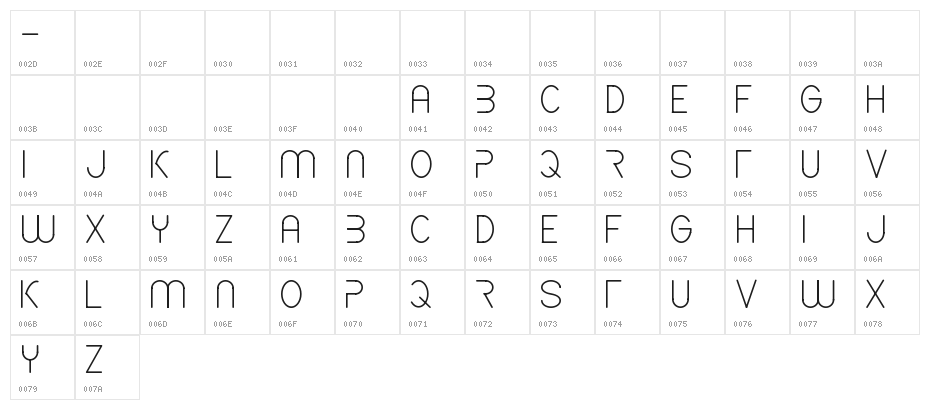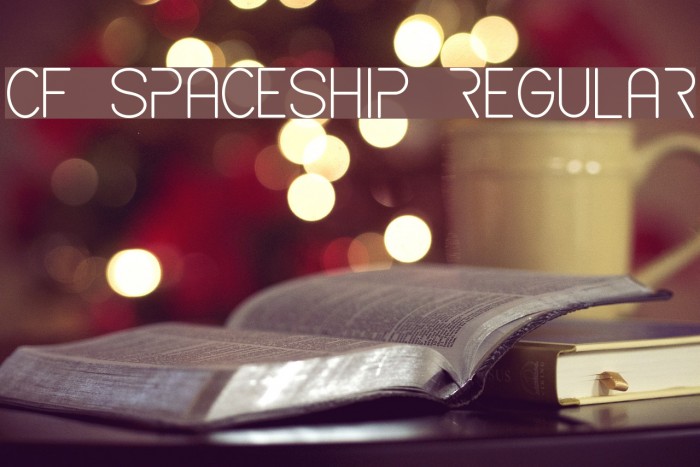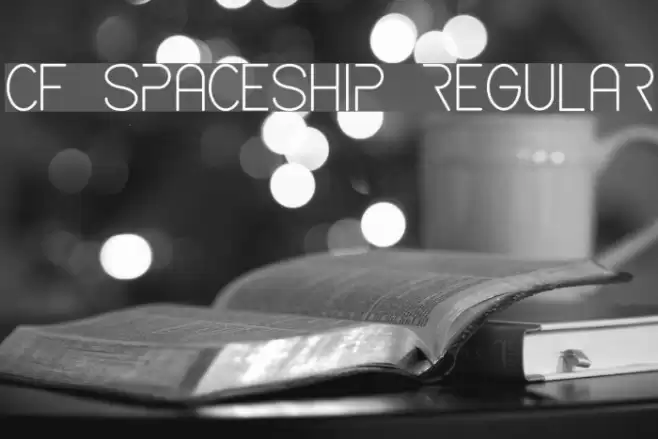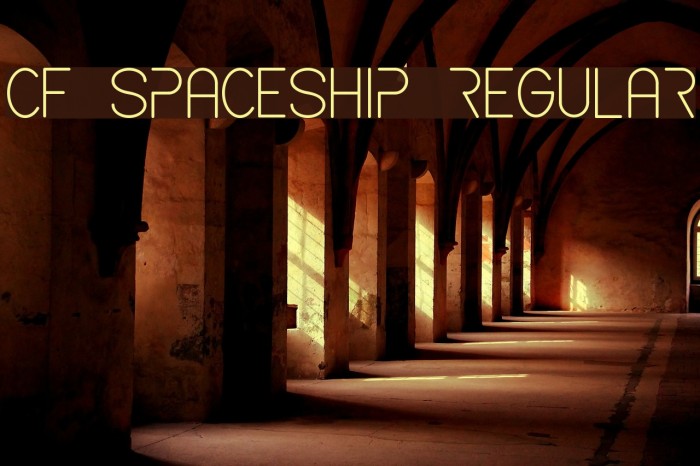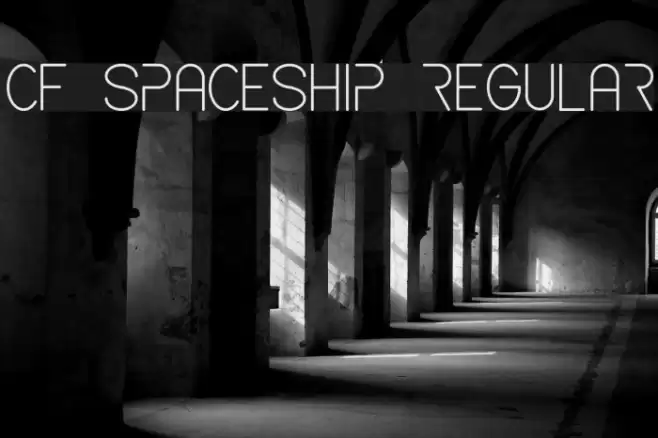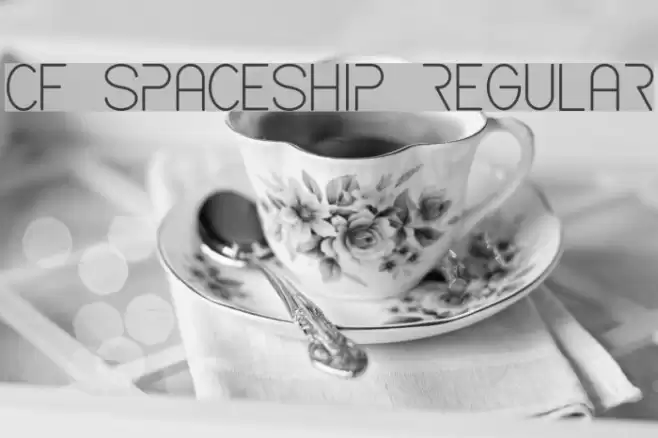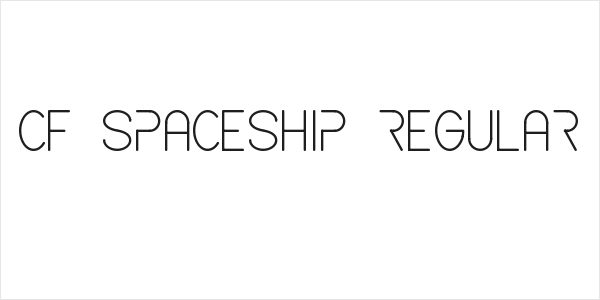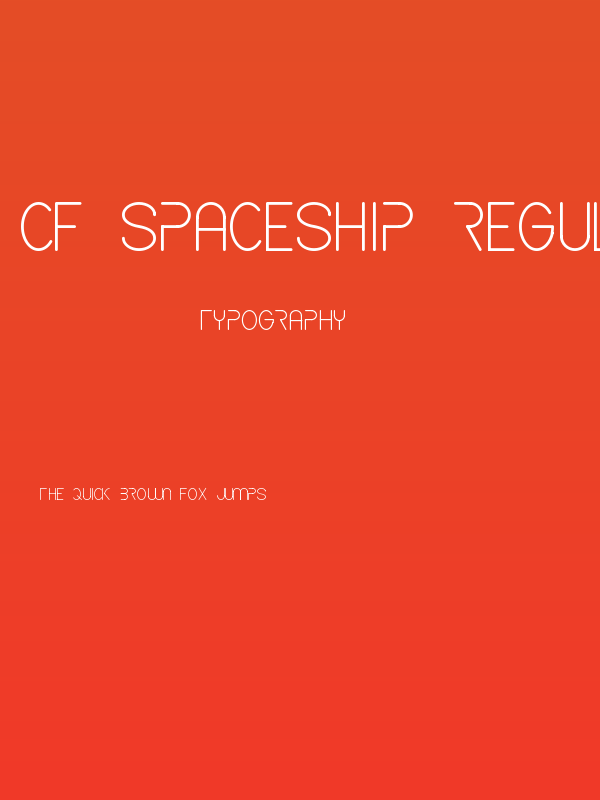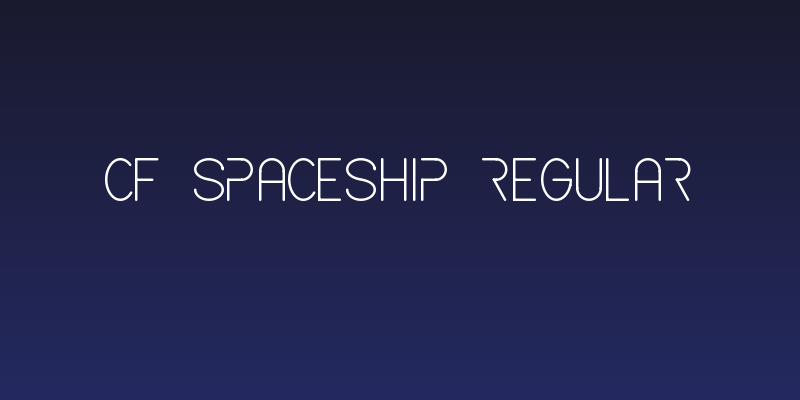
CF Spaceship Regular Font
CF Spaceship Regular Description
This font features a futuristic and geometric design, characterized by its clean lines and rounded edges. The uppercase letters exhibit a uniform height with a consistent stroke width, creating a harmonious and balanced appearance. The lowercase letters maintain the same geometric style, ensuring readability while adding a modern touch. The numerals are designed with the same aesthetic, offering a cohesive look across all characters. The special characters are stylized to match the overall theme, making this font ideal for projects that require a contemporary and sleek appearance.